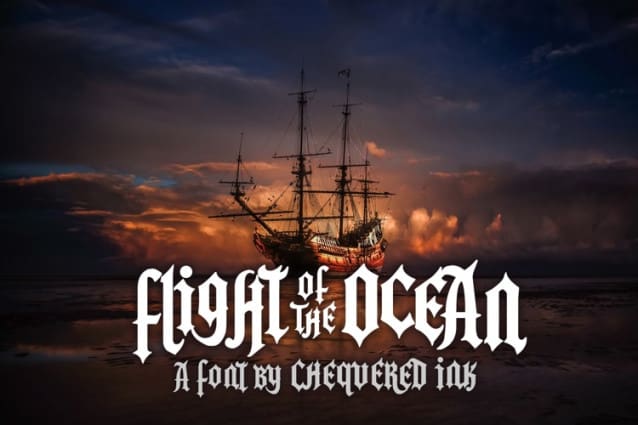
Flight Of The Ocean Font
Flight Of The Ocean Font, It would be a perfect choice to design posters, affiches, logos, t-shirt and magazine prints, eye-pleasing typographic designs and more.